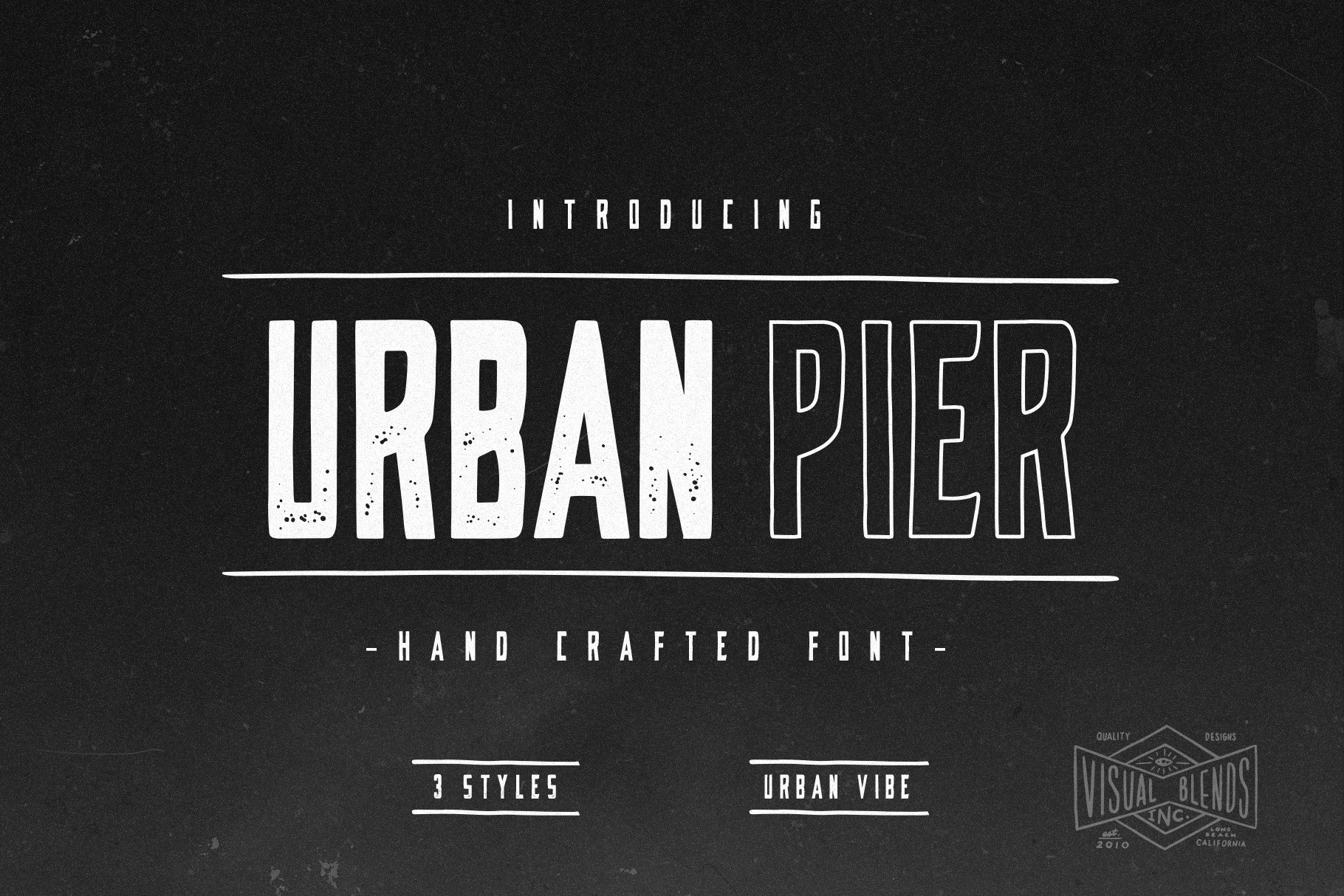
Urban Pier- Handcrafted Display Font
Urban Pier is an urban handcrafted display font that is inspired by 1900 ghost mural typography.
1.) Urban Pier - Includes 3 unique styles Regular, Rough & Outline